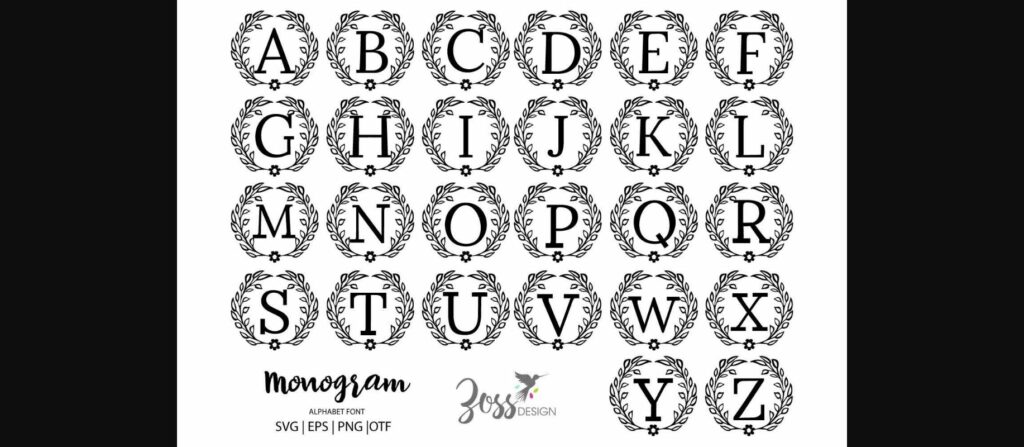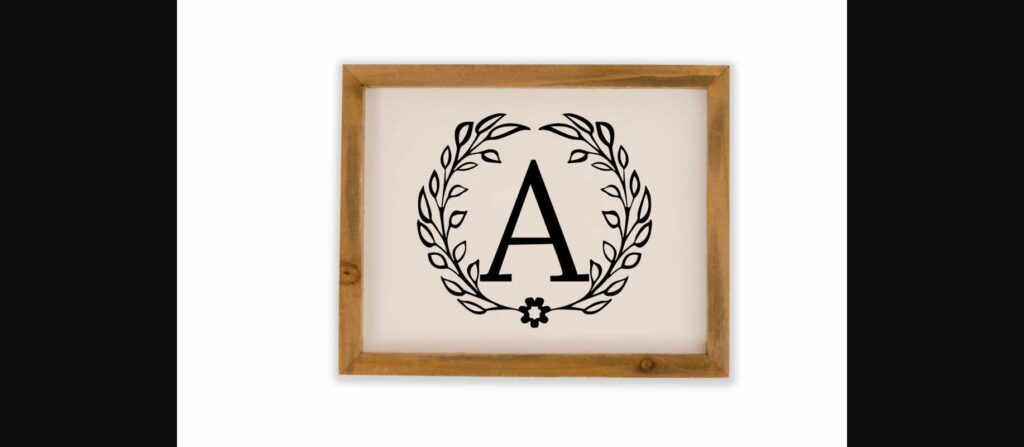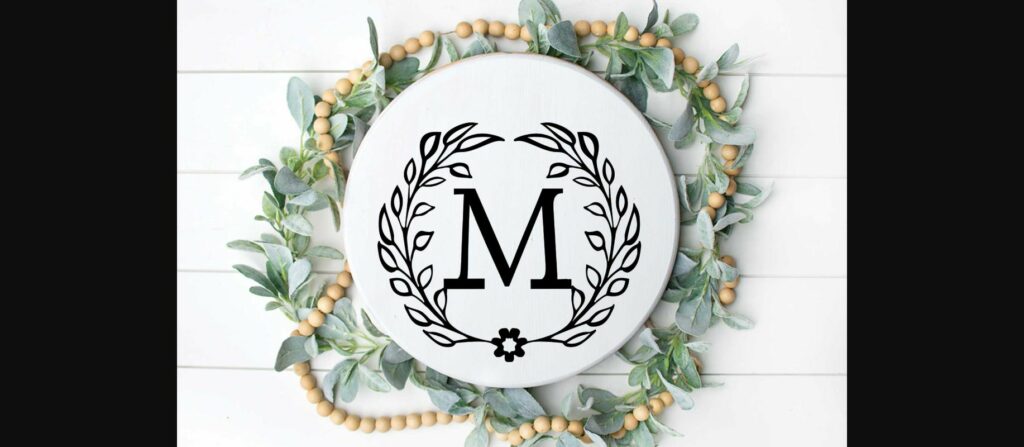
Zoss Monogram Font
About Zoss Monogram Font
Zoss Monogram is an elegant and distinct decorative font. It ca be employed to various creations that require a genuine, delicate touch, such as logos, wedding invitations, headings, t-shirts, letterhead, signage, labels, news, posters, badges and so much more.